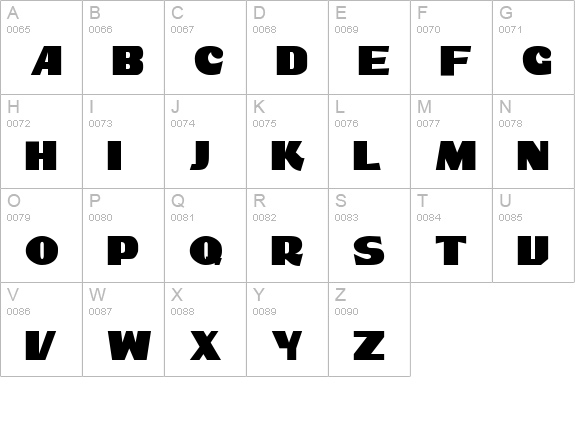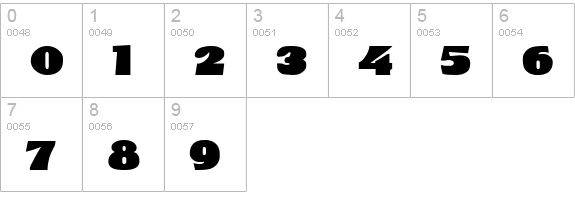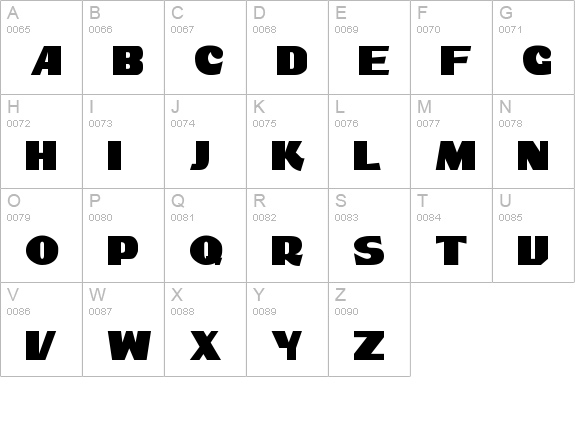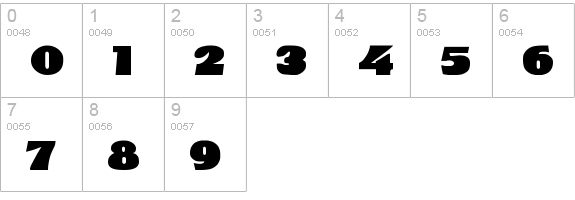
DS ShowBill Font Details
DS ShowBill is a versatile and modern display font that exudes a sense of creativity and sophistication. With its unique character shapes and stylish design, this font is perfect for adding a touch of elegance to any project. Whether you're designing posters, logos, or packaging, DS ShowBill will make your text stand out and captivate your audience. The best part? DS ShowBill is completely free to download at FontsMarket.com. This means you can access this high-quality font without any cost, making it a valuable addition to your font library. Don't miss out on the opportunity to enhance your designs with the beauty and charm of DS ShowBill. Download it today and elevate your creative projects to the next level.